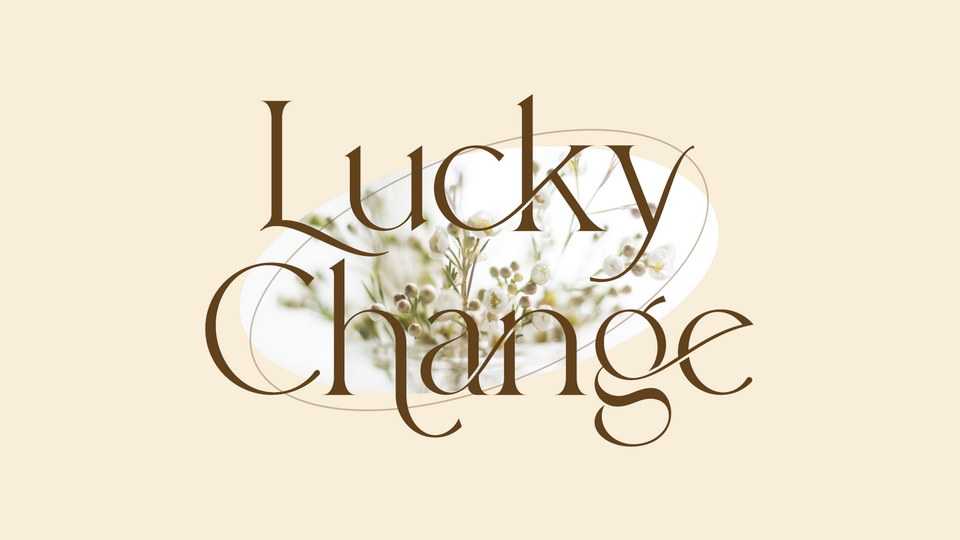
Download Lucky Change font, a serif typeface with classy and premium shapes and neat curves. Lucky Change is inspired by simple and luxury typography.